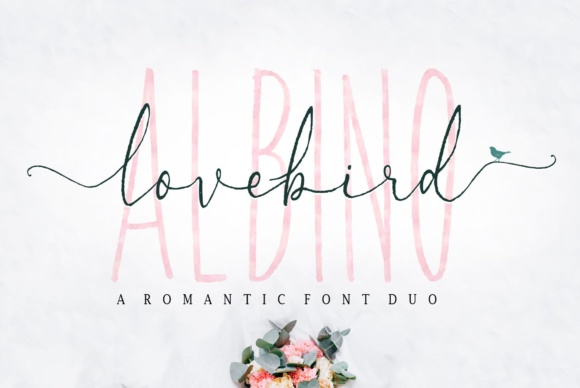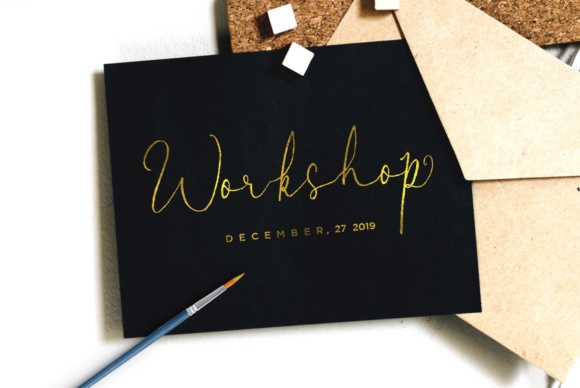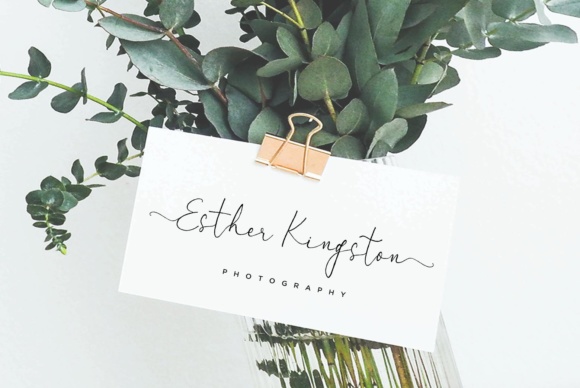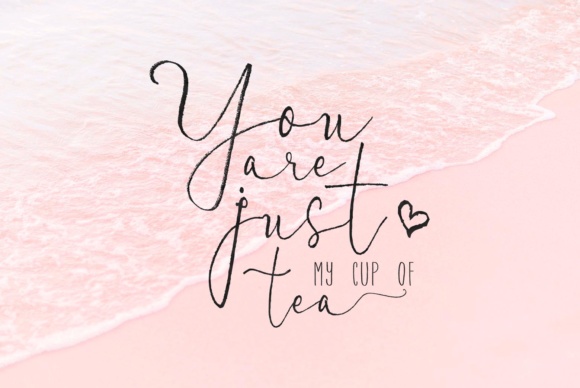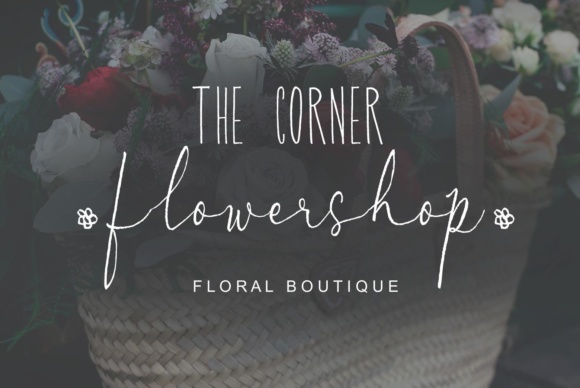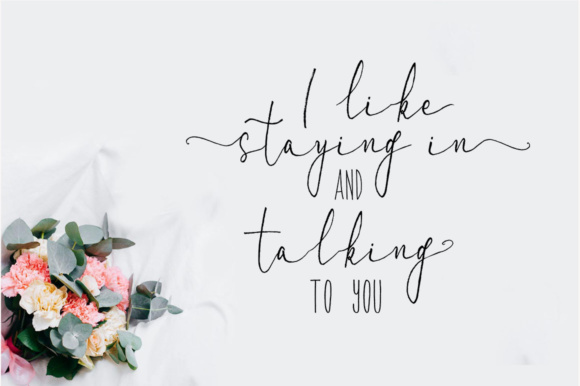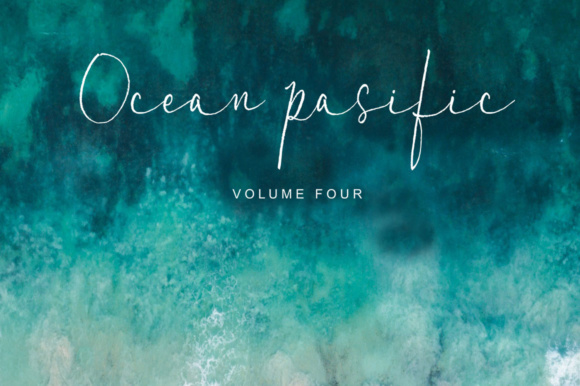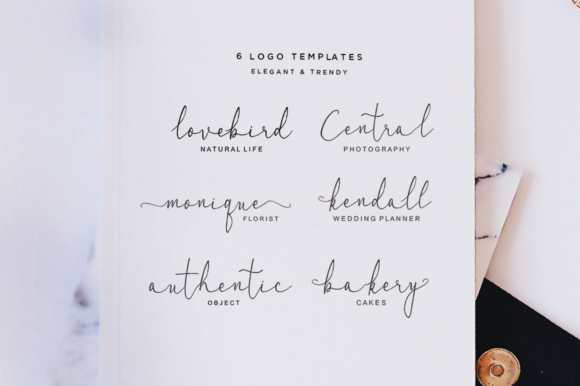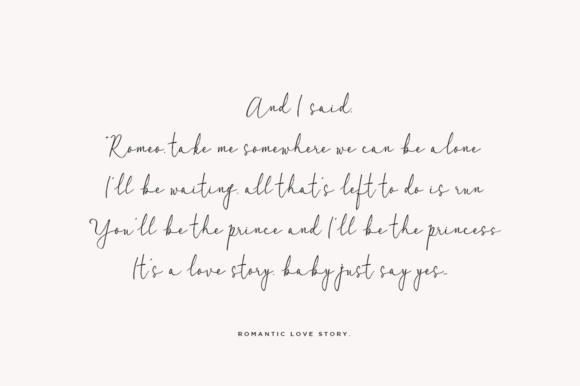
Lovebird Font
About Lovebird Font
The Lovebird is a romantic brush font duo with contemporary, sophisticated accents. Suitable for use in watercolor designs or novel titles, apparel, invitations, quotes, and more.